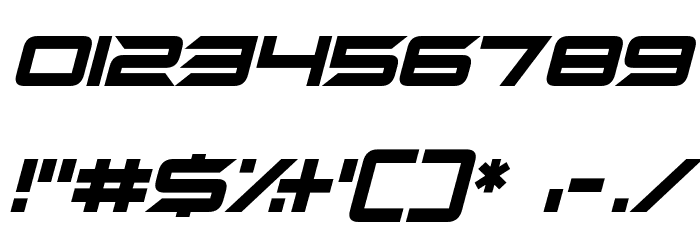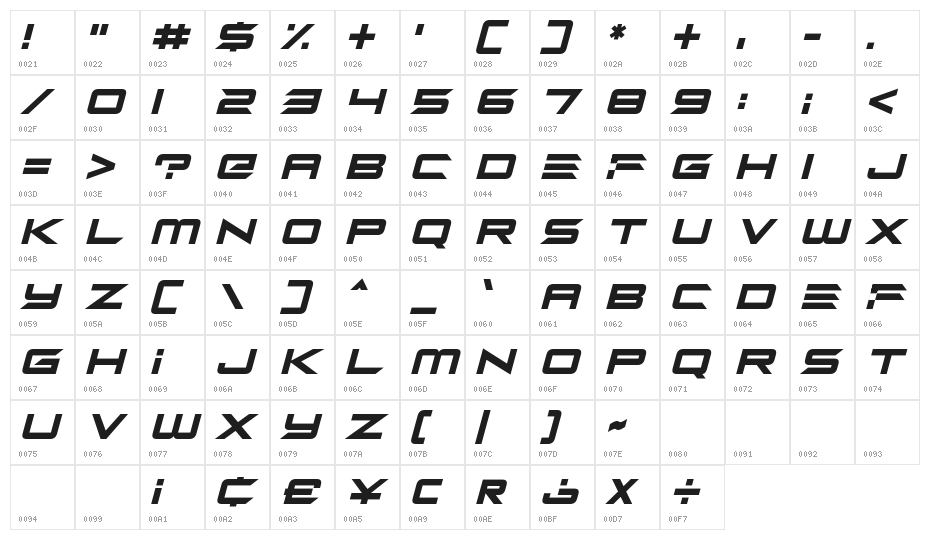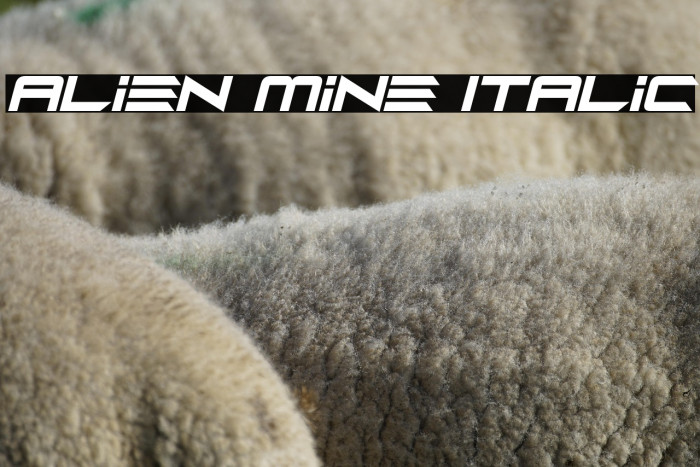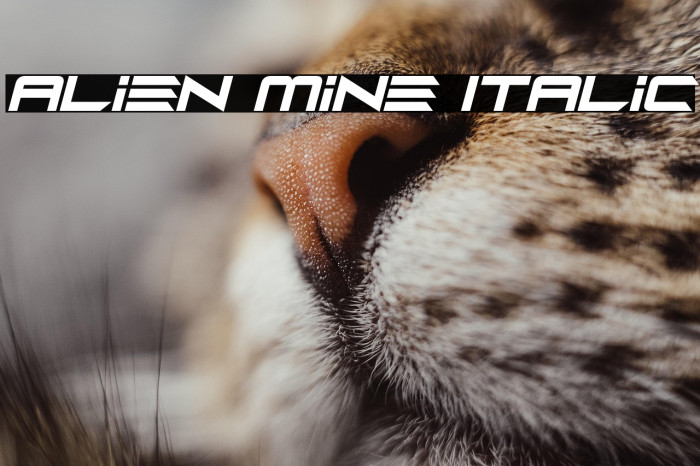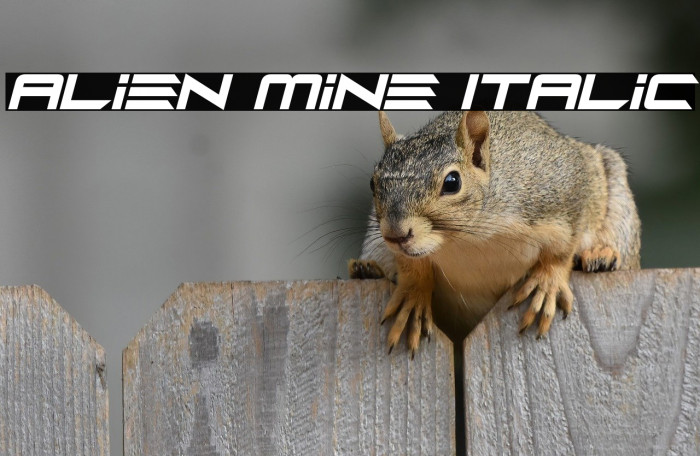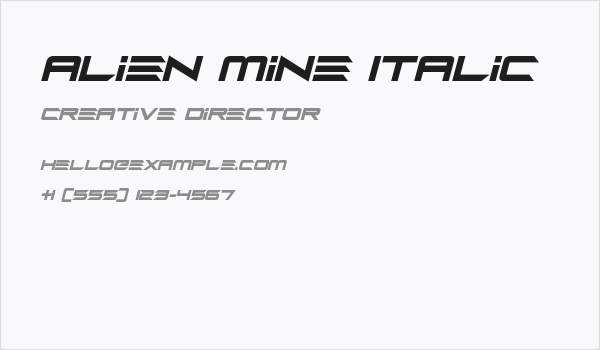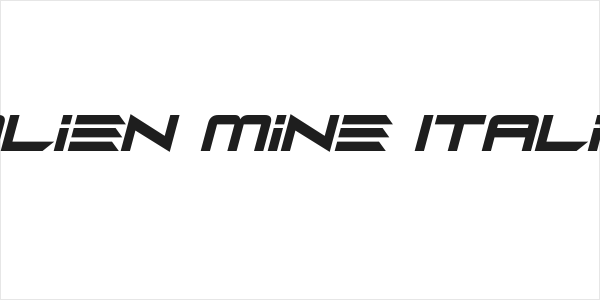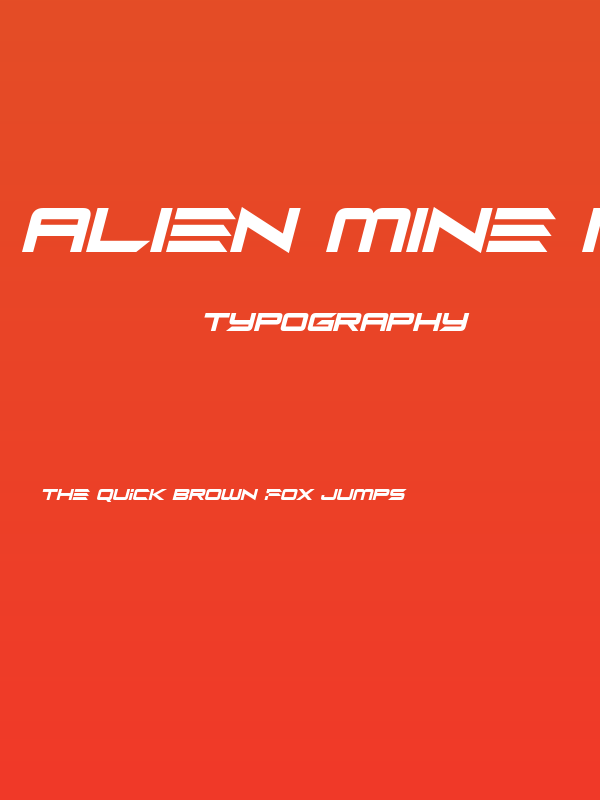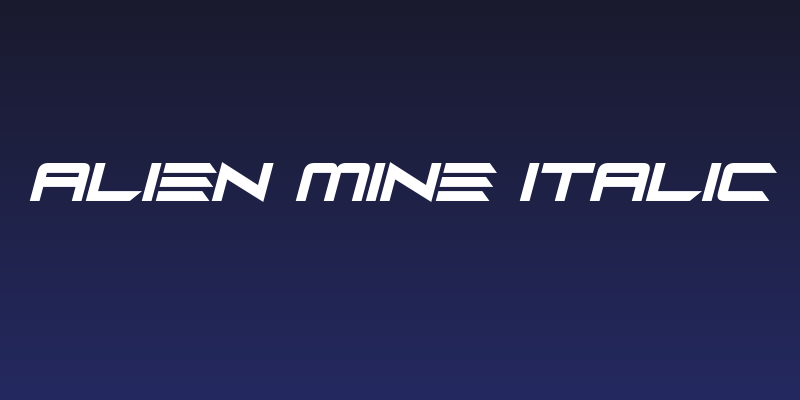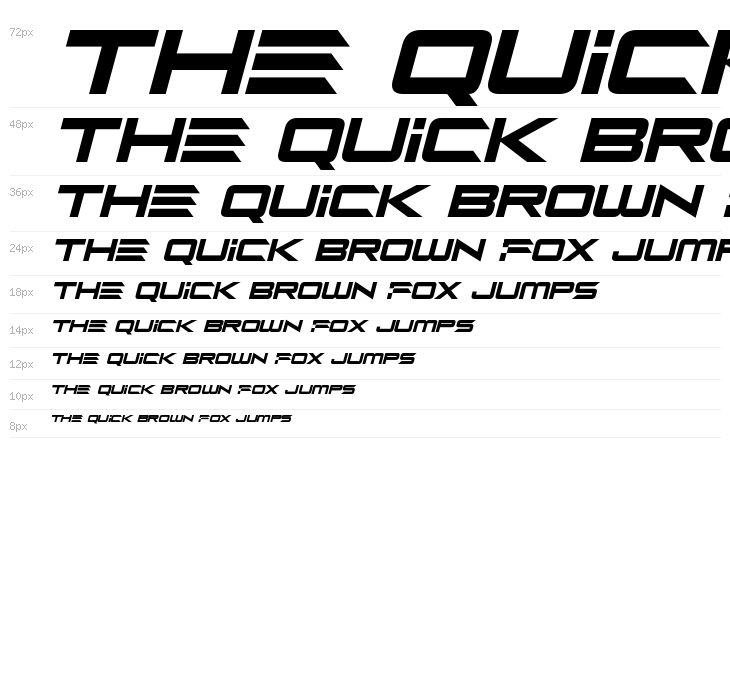
Alien Mine Italic Font
Alien Mine Italic Description
This font features a futuristic and angular design, characterized by sharp edges and a sleek, italicized form. The letters are distinctly geometric, with a consistent slant that adds a dynamic and forward-moving feel. The uppercase and lowercase letters maintain a uniform style, with the uppercase being slightly more pronounced. Numbers and special characters follow the same angular and modern aesthetic, making the font suitable for tech-oriented projects. The overall appearance is bold and eye-catching, ideal for making a strong visual impact.
| Proposed Projects | Ideal for sci-fi themed posters, tech branding, video game titles, and futuristic product packaging. |